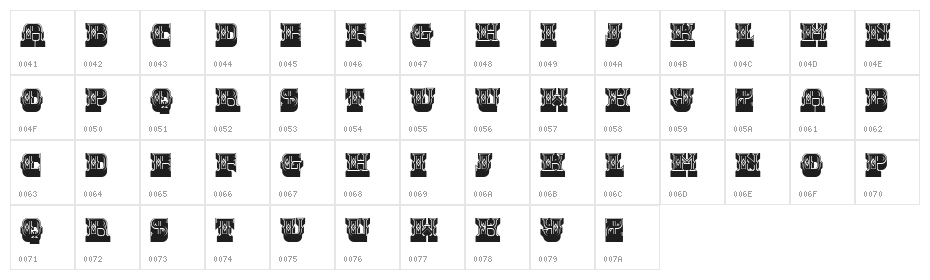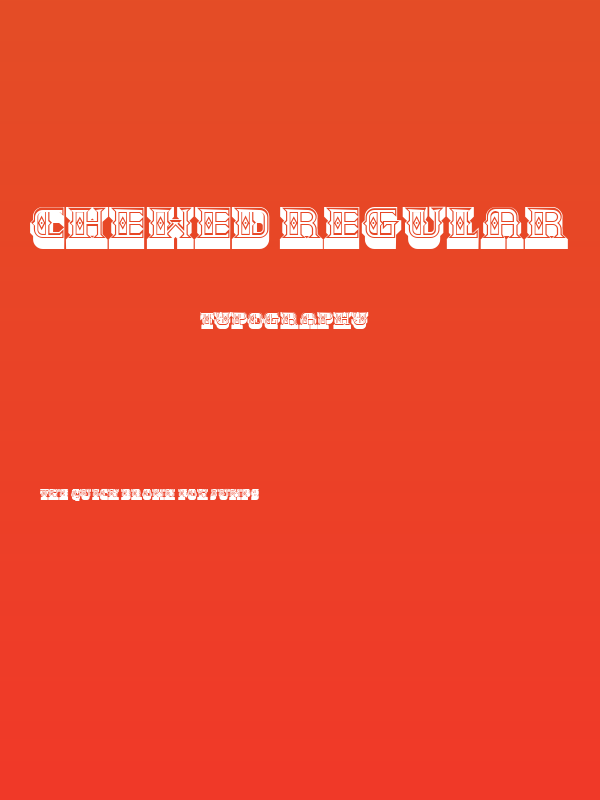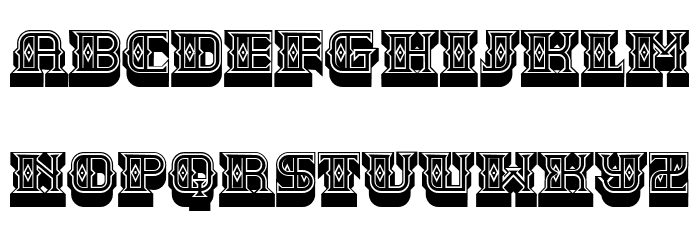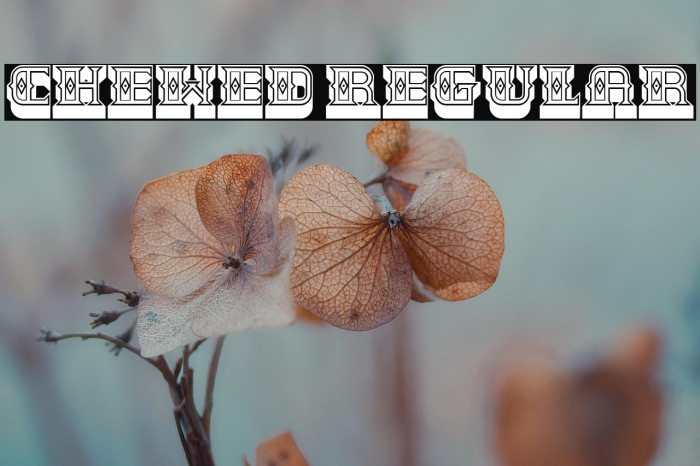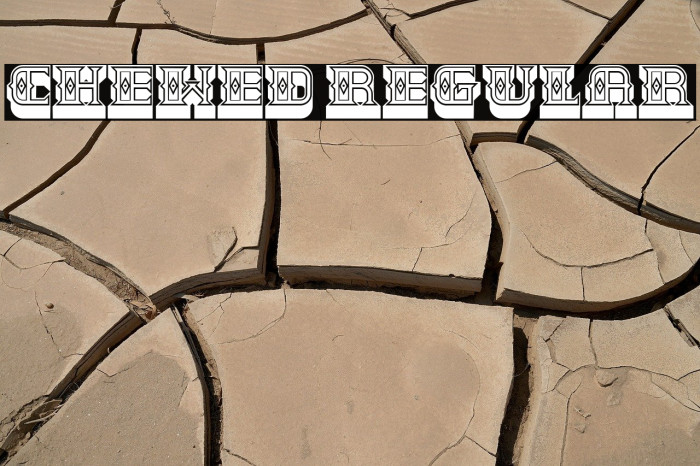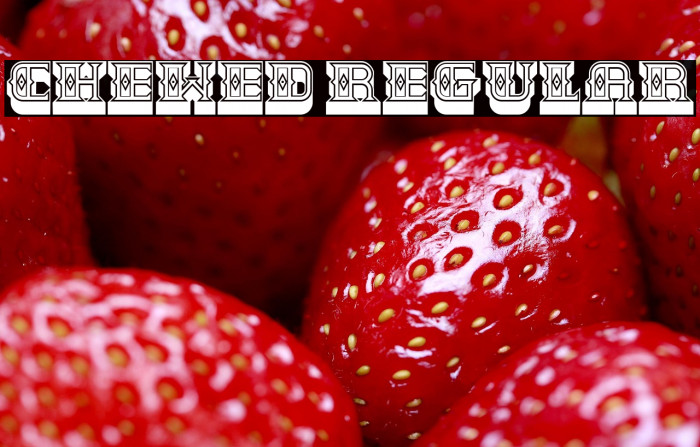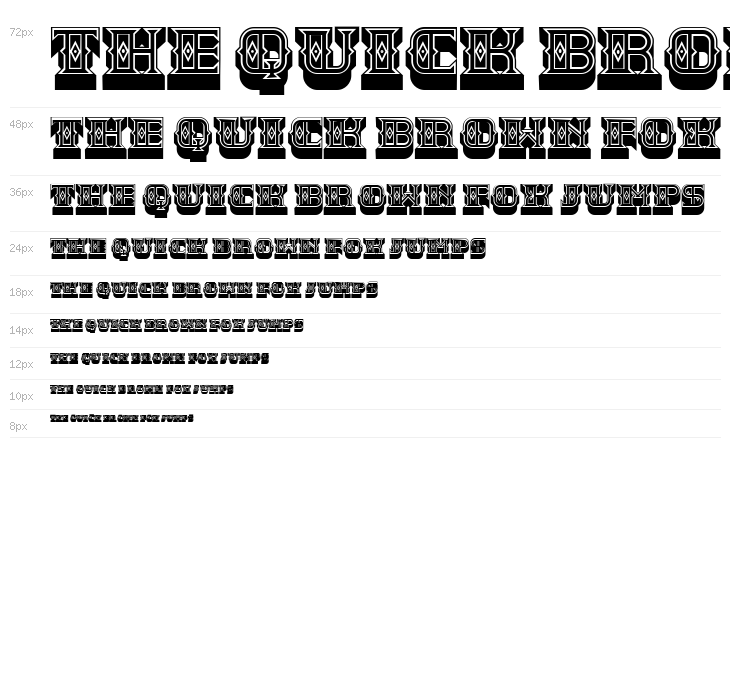
Chewed Regular Font
Chewed Regular Description
This font features a bold, decorative style with intricate patterns within each letter, creating a striking visual impact. The characters are designed with a three-dimensional effect, giving them a shadowed appearance that adds depth. The geometric patterns inside the letters are reminiscent of traditional ornamental designs, making it a unique choice for eye-catching displays. The font maintains a consistent width and weight across all characters, ensuring uniformity. Its elaborate style is best suited for creative projects where a strong visual statement is desired.
| Proposed Projects | Ideal for posters, album covers, event invitations, and branding that requires a bold, artistic touch. |